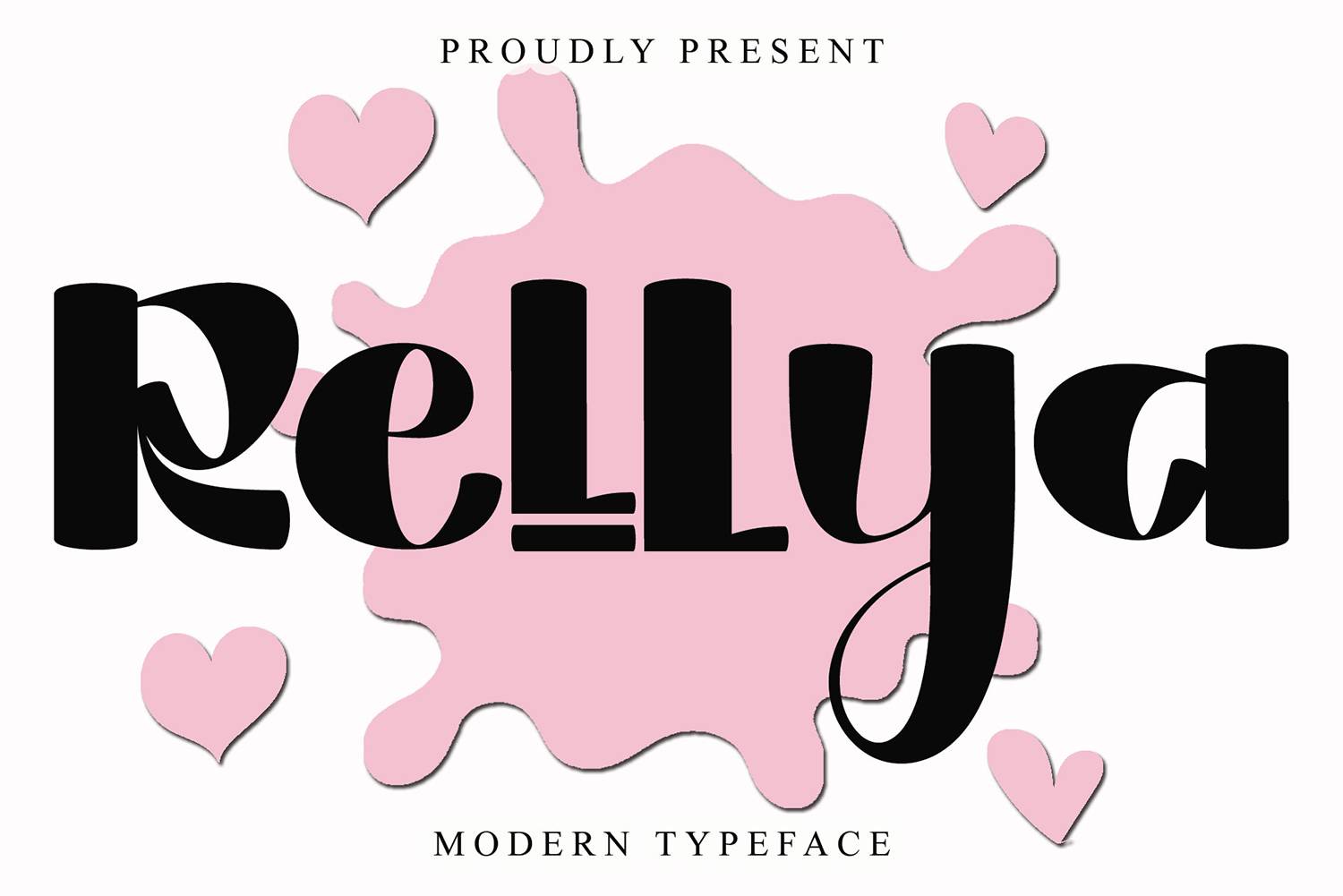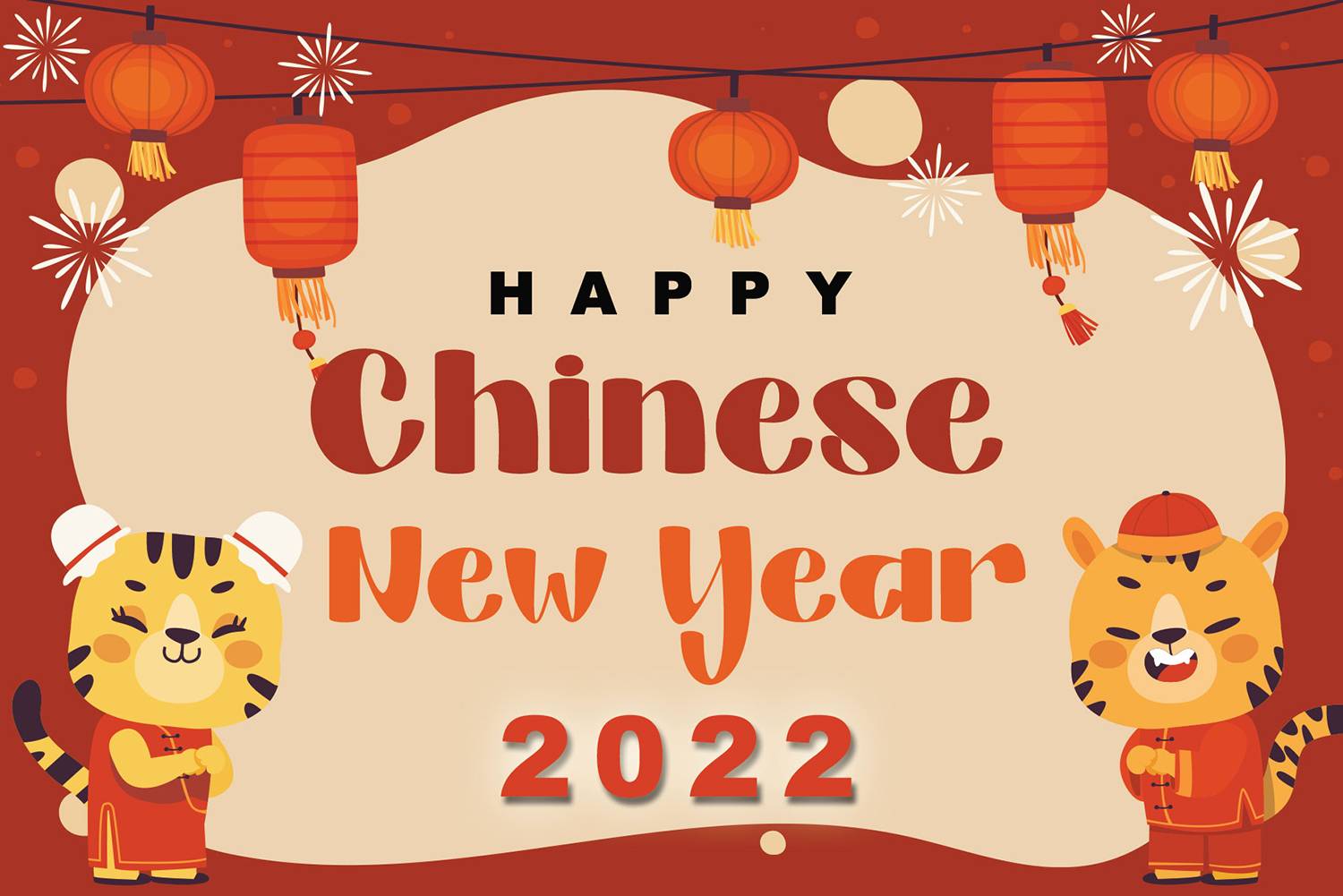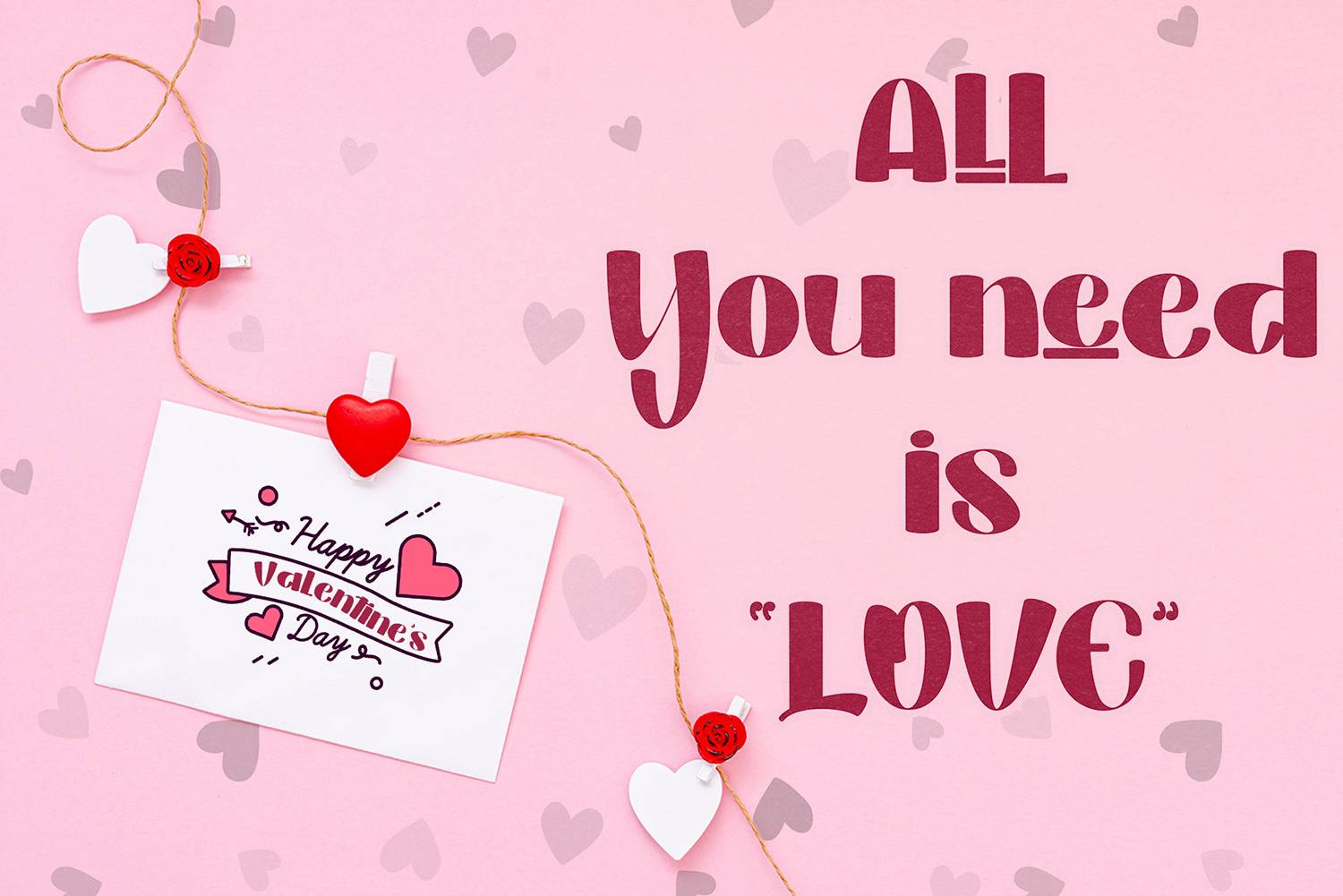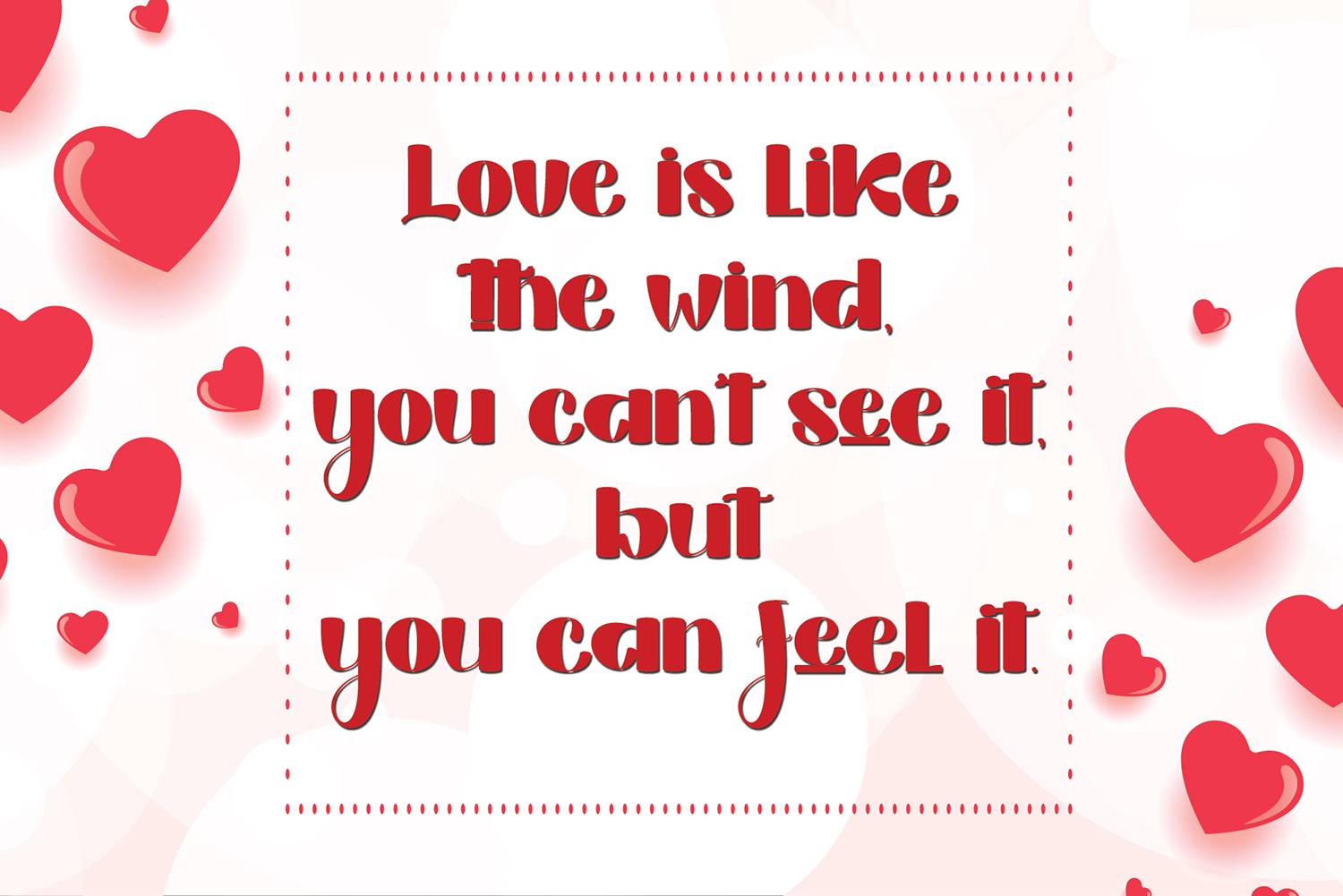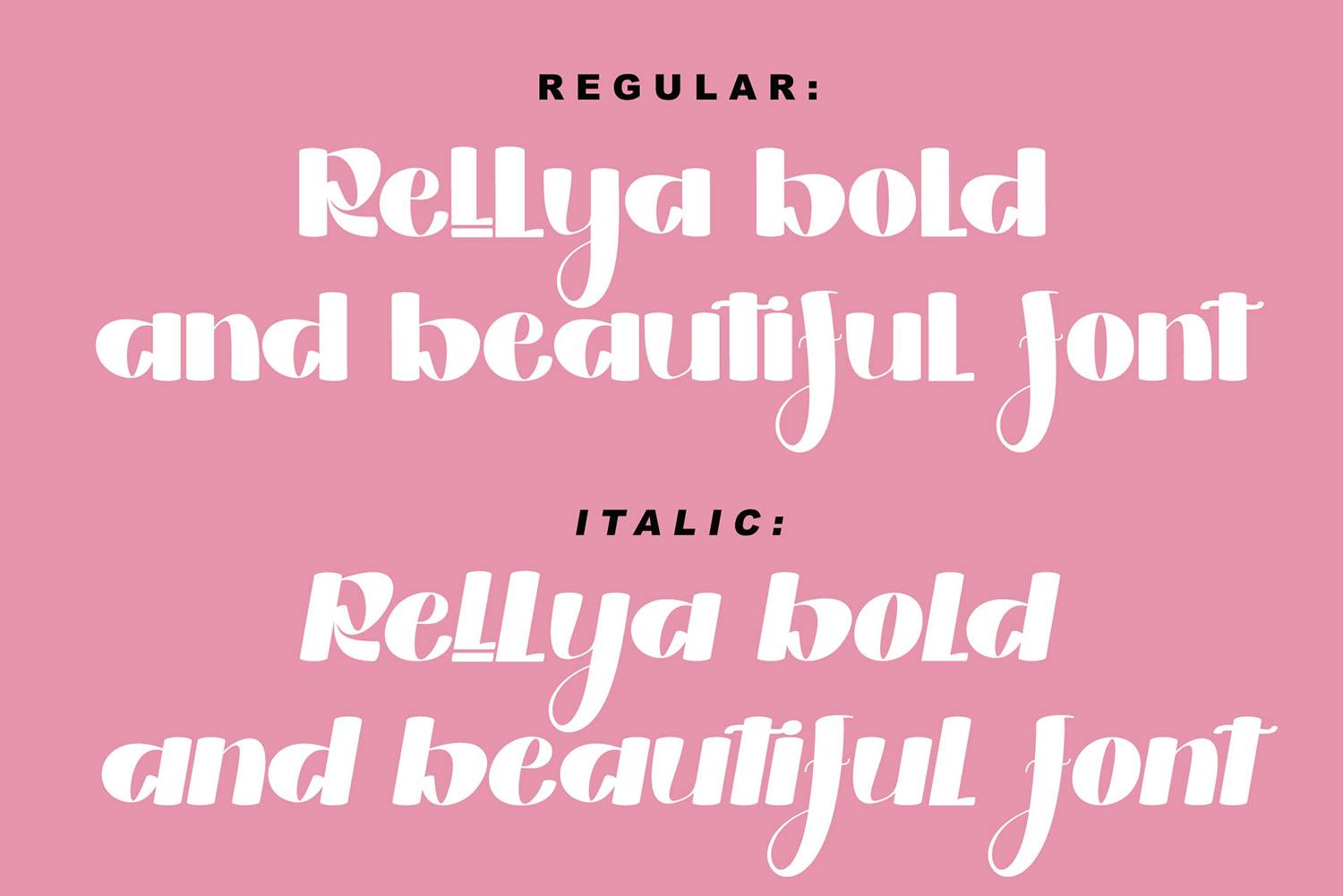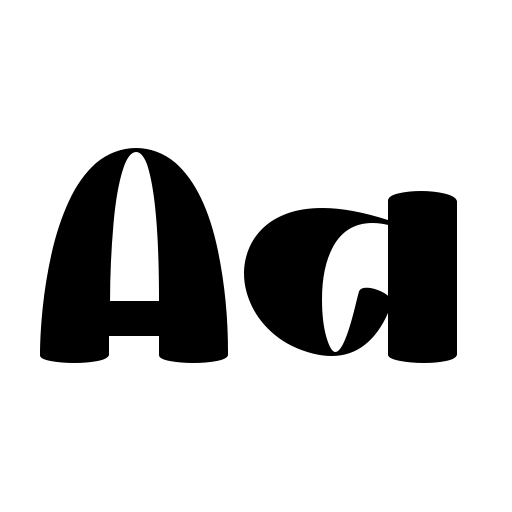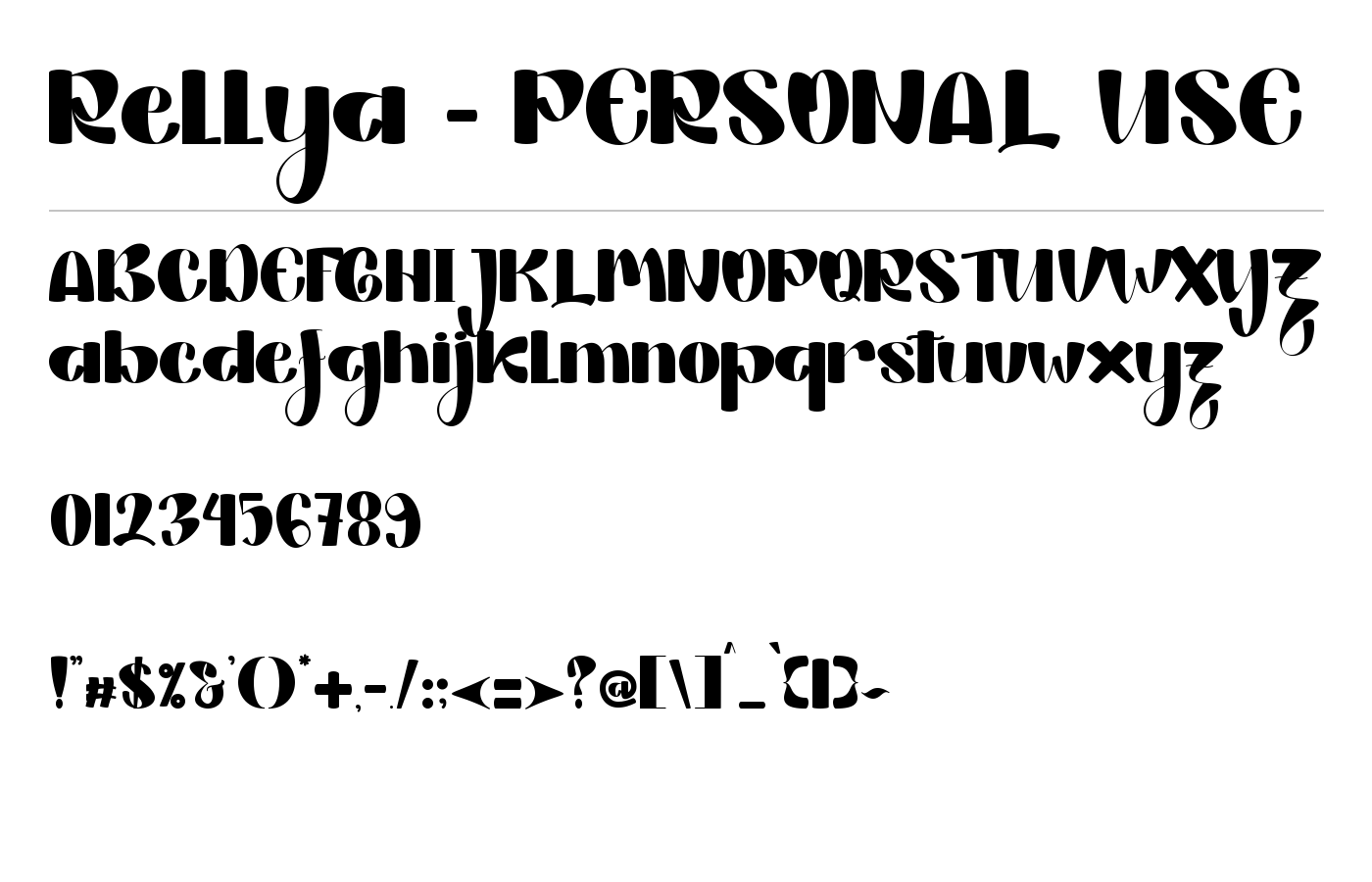
Rellya is a bold, playful display font with a unique blend of thick, rounded strokes and elegant, calligraphic swashes, giving it a lively, artistic feel. Its mix of uppercase and lowercase forms with distinct stylistic details works well for creative branding, headlines, and decorative projects where personality and charm are key. This font shines in contexts like logos, posters, and invitations where a fun yet sophisticated vibe is desired.
Rellya Font
About Rellya Font
| Font family | Rellya Font |